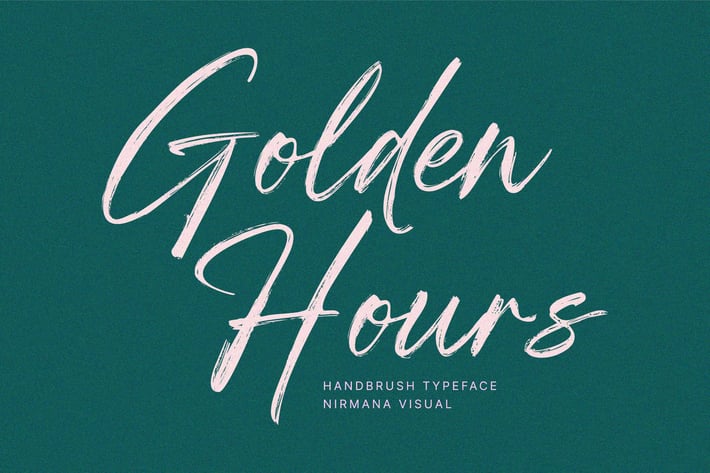
Golden Hours - Brush Logo Font
Golden Hours offers beautiful typographic harmony for a diversity of design projects, including logos & branding, social media posts, advertisements & product designs.